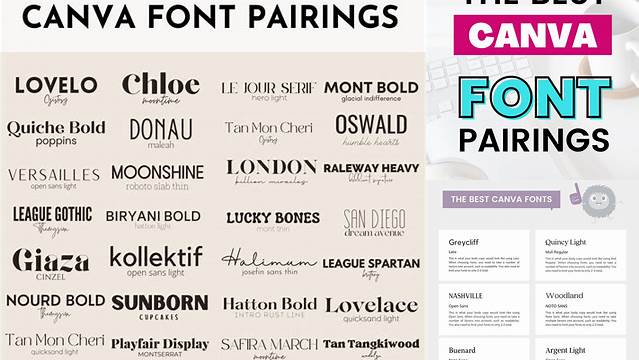
Best Canva Font Pairings & Design Tips
Alright, design enthusiasts! Let's dive headfirst into the awesome world of Canva fonts. You know, choosing the right fonts can seriously make or break your designs. It's like picking the perfect outfit – it has to fit the vibe, right? And that’s where Canva fonts recommendations come into play. So, whether you're a seasoned designer or just starting out, this guide is packed with tips, tricks, and some seriously killer font pairings to get your creative juices flowing. We'll explore everything from the basics of font types to how to create visually stunning designs that will grab attention. Get ready to level up your design game, guys!
Canva Font Essentials: Understanding the Basics
Before we get into the nitty-gritty of Canva fonts recommendations, let’s chat about font fundamentals. Think of fonts as the voice of your design. They communicate a certain mood, style, and personality. There are tons of different font types out there, but some of the most common ones you’ll encounter in Canva are: Serif fonts, which have those little decorative strokes (think Times New Roman), and they often give off a classic, elegant vibe. Sans-serif fonts (like Arial or Helvetica) are clean and modern – they don’t have those strokes, making them super readable and versatile. Then there are script fonts, which mimic handwriting and add a touch of personality and flair. And let's not forget display fonts – these are the showstoppers, designed for headlines and eye-catching elements. Understanding these types will help you pick the right fonts for your projects. For example, using a serif font for a formal invitation or a sans-serif font for a website header.
But hey, it's not just about the font type, it's also about how well the fonts work together. This is where font pairing comes into play. Choosing the right combination of fonts can make a design go from “meh” to “wow”. Ideally, you'll want to pick fonts that complement each other. Don’t worry, we'll get into specific pairings later on.
When you browse through Canva fonts, pay attention to their readability and the emotions they evoke. A font that's perfect for a playful kids' event might not be the best choice for a corporate report. And of course, make sure the font is easy to read, especially in body text. We're talking about legibility. A poorly chosen font can frustrate readers and make them bounce off your design. So, take your time, experiment, and see what works best for you.
Remember, the perfect font depends on your project and your brand. There's no one-size-fits-all solution, and that’s part of the fun! So, let's dive deeper and learn how to leverage those Canva fonts recommendations to get you there.
Font Pairing Strategies for Canva Designs
Okay, so we've covered the basics. Now, let's talk about how to actually pair fonts in Canva. It's like finding the perfect match on a dating app – you want fonts that complement each other, not clash! There are a few strategies you can follow. Contrast is your best friend. Pair a bold headline font with a more subtle body font. Think about pairing a strong sans-serif with a clean serif. This creates visual interest and makes your design more dynamic. Consistency is also key. Stick to a style and theme throughout your design. Don’t throw too many different font styles in there. It can overwhelm the viewer. Choose fonts that align with your brand’s personality.
Let's look at some example pairings. A popular choice for many is to pair a modern sans-serif headline font with a classic serif body font. For example, using a font like Montserrat for headlines and Open Sans for body text. Or try a script font for headings and a simple sans-serif for the body, like Great Vibes combined with Lato. This combo offers a touch of elegance without compromising readability. Hierarchy is super important too. Use different font sizes and weights to establish a clear visual hierarchy. Headlines should be bigger and bolder than body text. Use different font sizes and weights within your design to ensure readers know what's most important.
Also, consider the design's purpose and audience. A website for a tech startup will call for a different font pairing than a brochure for a wedding. Think about what kind of vibe you want to achieve and choose your fonts accordingly.
Don't be afraid to experiment! Canva offers a vast library of fonts, and there are tons of tutorials and resources online to help you. Play around with different combinations until you find something you love. Once you nail the font pairing, you will see how much better your work looks. And there is no single “right” answer. The best Canva fonts recommendations and pairings are the ones that serve your design goals.
Top Canva Fonts for Headlines: Making a Bold Statement
Headlines are your design's first impression. They're what grab attention and draw the viewer in. So, picking the right headline font is essential. When looking through Canva fonts recommendations for headlines, look for fonts that are bold, distinctive, and easy to read, even at a large size. Montserrat is an amazing sans-serif font, incredibly versatile and modern. It's clean, readable, and perfect for a wide range of applications. Bebas Neue is another classic. It's a tall, condensed sans-serif that's super impactful. Ideal for short headlines and titles that need to make a statement.
Oswald is similar to Bebas Neue, but it has slightly more character. Lato is another fantastic choice – a clean, friendly sans-serif that's perfect for headlines. It’s got a great balance of boldness and readability, so it is a safe bet. If you want something with a bit more personality, look into the display fonts. Playfair Display is a beautiful serif font with a high contrast between thick and thin strokes, ideal for fashion or lifestyle brands. Poppins is another well-known sans-serif choice for headlines, known for its round shapes and friendly feel.
Remember, your headline font sets the tone for your design. Choose fonts that reflect your brand’s personality and message. Consider the mood you want to create. Do you want something serious and professional or fun and playful? Match your font to the purpose of your design. The fonts you choose are important to conveying your message. The best Canva fonts recommendations here are those that fit your brand and target audience. Make sure to try different weights and sizes to see what looks best. Play around with different color combinations. Don't be afraid to think outside the box!
Canva Fonts for Blogs: Improving Readability for Readers
Blogs are great for sharing information. Your font choices can help readers. Choose fonts that are clear and easy to read. Use a consistent style. Use the Canva fonts recommendations and make it an engaging read. Blog posts will be more engaging with the right font choices. Get readers’ attention. The right fonts can make your blog posts stand out.